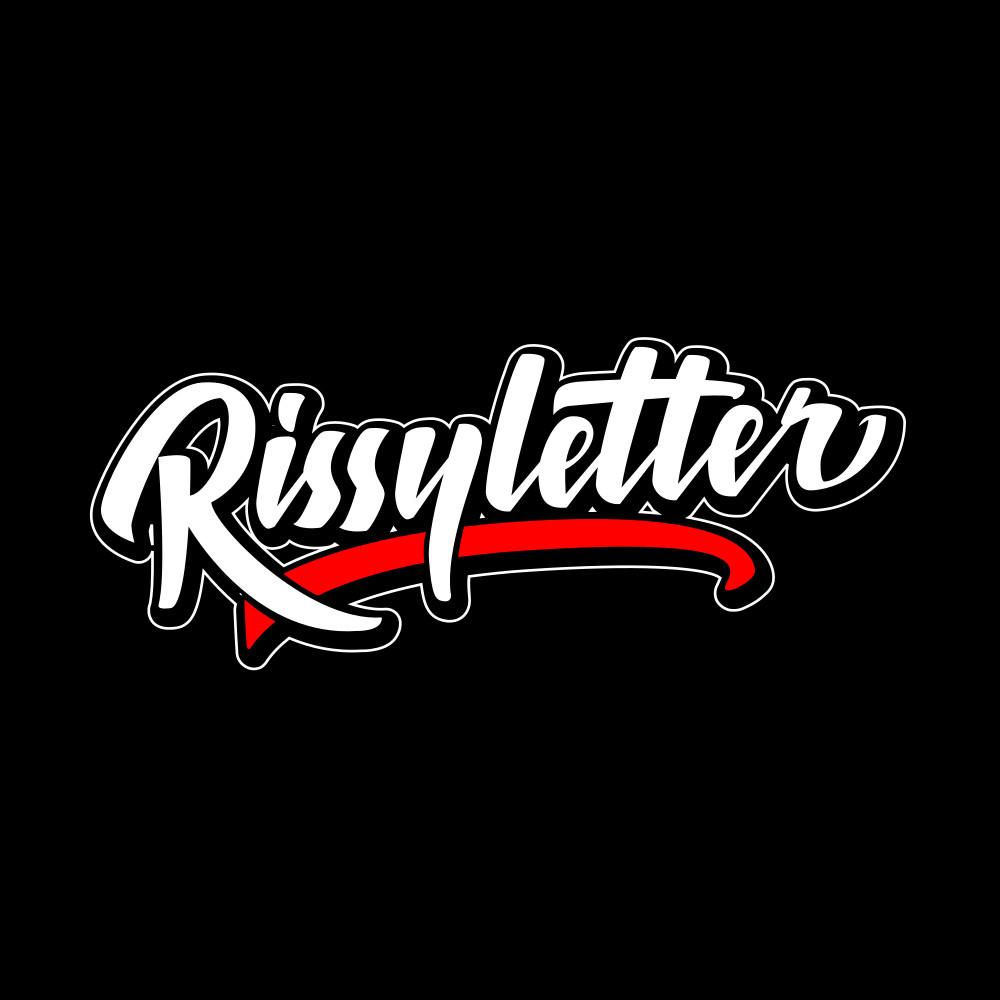
Saintine Font Description
Saintine is a stylish, elegant, and modern signature script font. It is perfect for various projects such as logos and branding, hand lettering, merchandise, advertisements, invitations, social media posts, etc.
This font is PUA encoded, which means you can access all of the glyphs and swashes with ease!